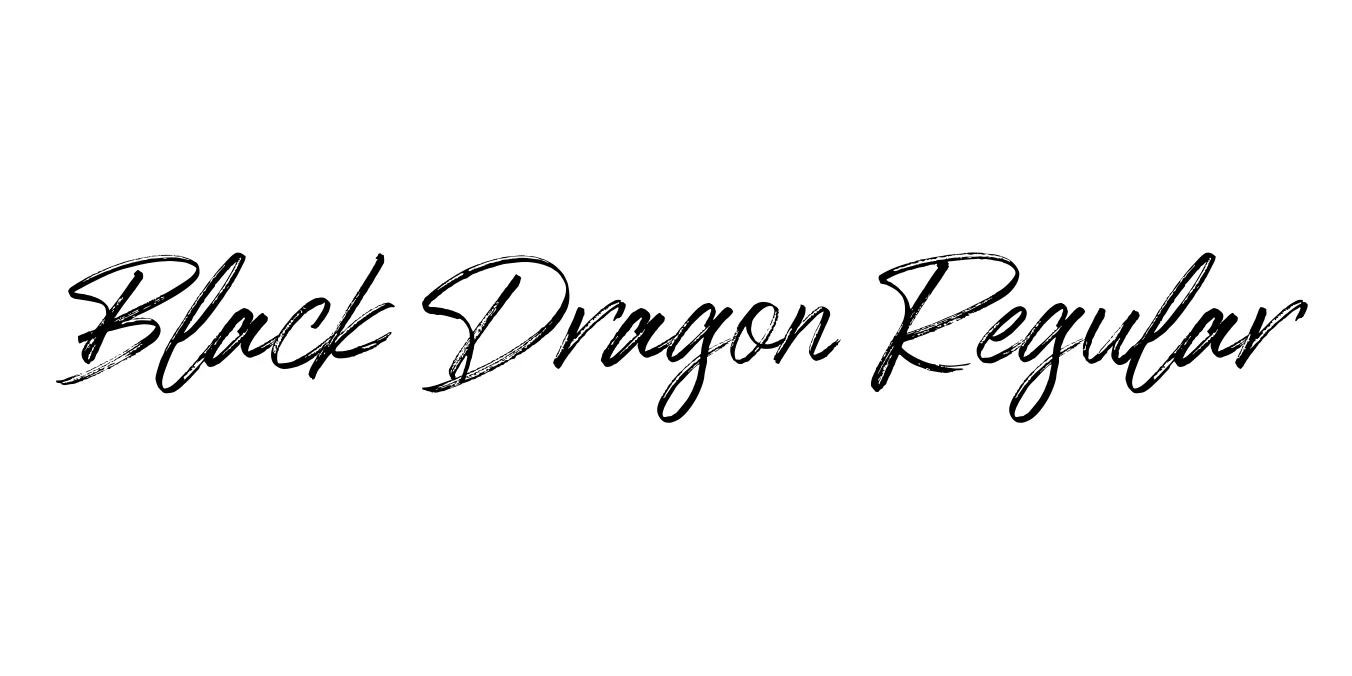
Black Dragon Regular
Designed by Bluestype Studio
Black Dragon Regular is a bold, expressive brush script font that captures the essence of raw energy and hand-painted artistry. Characterized by its distressed textures and fluid, sweeping strokes, this typeface is designed to make a powerful visual statement. It draws inspiration from modern urban calligraphy and traditional ink-brush techniques, offering a unique blend of grit and elegance that stands out in any contemporary creative project.
Ideally suited for high-impact designs, Black Dragon excels in environments where personality and strength are paramount. Whether it is used for edgy streetwear branding, cinematic title sequences, or aggressive marketing campaigns, the font maintains its legibility while delivering a visceral aesthetic. Its natural flow and irregular edges provide an authentic, handcrafted feel that is essential for projects requiring a touch of rebellious or artisanal flair.
Black Dragon Regular Best Uses
Creating powerful and unique logos for lifestyle and sports brands.
Perfect for t-shirt graphics, hoodies, and streetwear typography.
Designing high-energy quotes and attention-grabbing Instagram headlines.
Ideal for action movie titles or energetic event flyers.